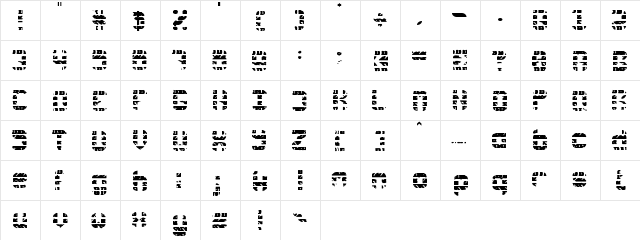
Rubber Wear Regular
| Designer | peps1992 |
Design Context for Rubber Wear Typeface
Rubber Wear is a composed and adaptable typeface that performs quietly and consistently across a wide range of design contexts.